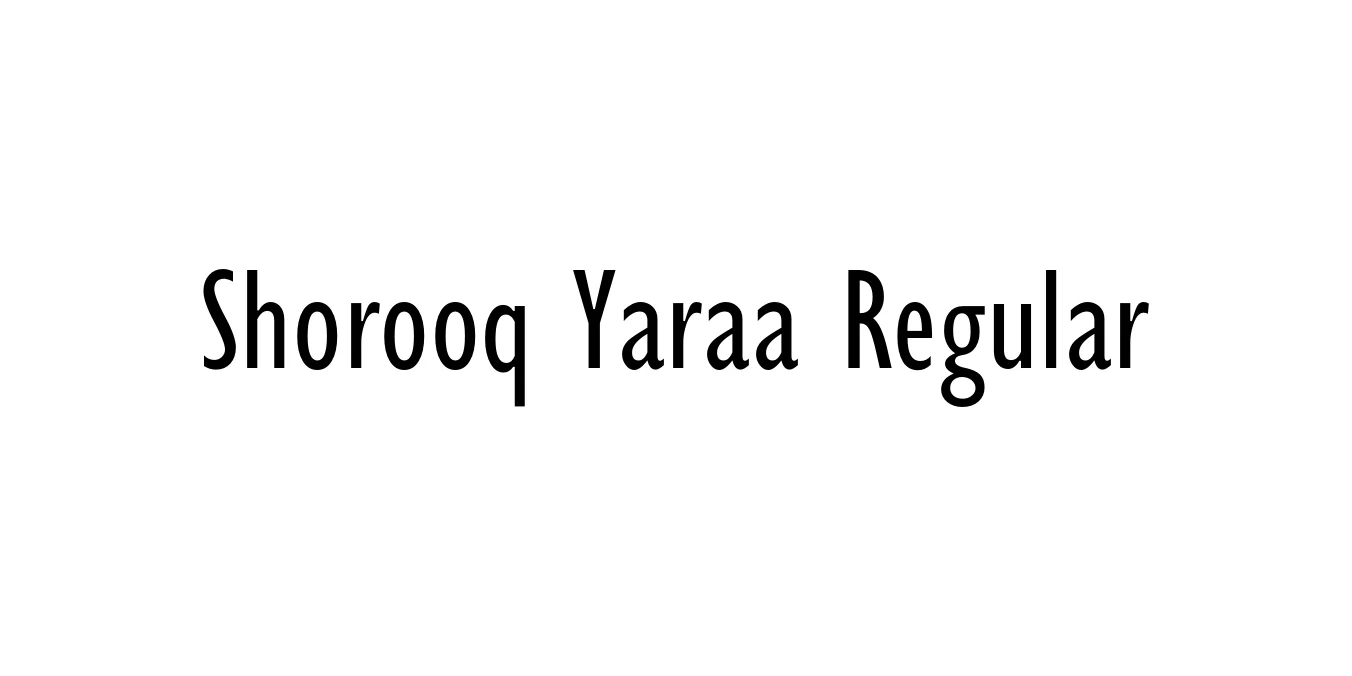
Shorooq Yaraa Regular
Designed by Naghi El-Alayli
| Category | Arabic / Calligraphy |
| Designer | Naghi El-Alayli |
Shorooq Yaraa Regular is a sophisticated contemporary Arabic typeface that masterfully bridges the gap between traditional Naskh calligraphic roots and modern geometric design principles. This typeface was crafted to provide a clean, legible, and elegant solution for designers looking to incorporate authentic Middle Eastern aesthetics into high-end professional projects.
The Shorooq Yaraa Regular style is defined by its balanced letterforms and refined stroke modulation, ensuring excellent clarity across both print and digital mediums. Its development focused on maintaining the rhythm of classical Arabic script while simplifying complex flourishes, making it an essential tool for corporate identities, luxury branding, and editorial layouts throughout the Arab world.
Shorooq Yaraa Regular Best Uses
Ideal for high-end magazines, books, and literary publications requiring clear Arabic text.
Perfect for creating sophisticated logos and corporate identity systems.
Optimized for high legibility in digital reading environments and UI elements.
Effective for impactful headlines and promotional materials in the Middle Eastern market.